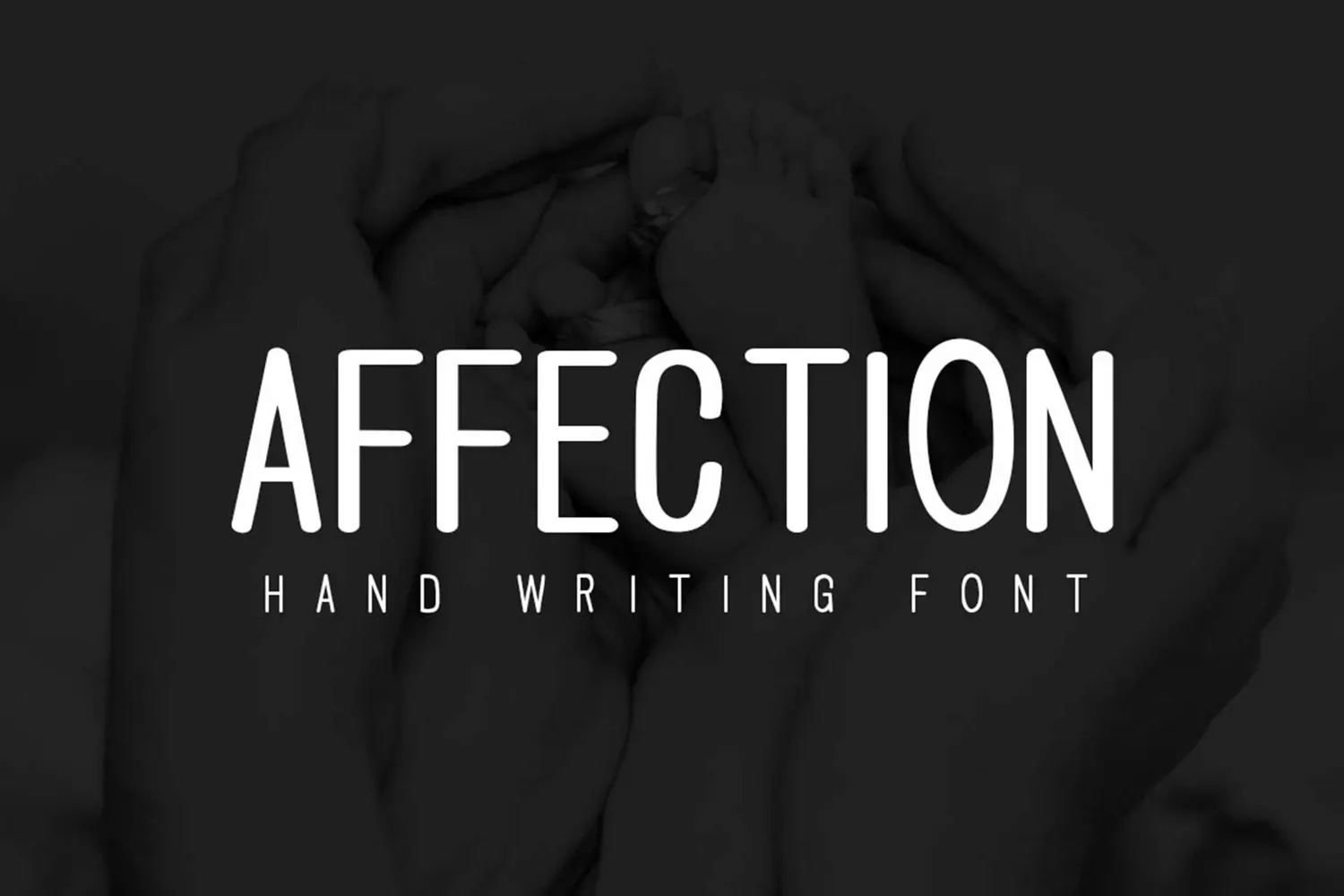
Affection Font
Affection is a tall, condensed, handwritten sans-serif font created to bring warmth, intimacy, and a genuine human touch to your creative work. The design is inspired by the simple beauty of modern minimalist handwriting—capturing the authentic feel of a quick hand-drawn note while keeping letterforms clean and easy to read. The goal was to create a versatile display font that combines tight, tall proportions with rounded edges to give design projects an approachable feel.
This font is ideal for graphic designers, crafters, content creators, and brand owners looking to add personality to their visuals. It works beautifully across a wide range of creative applications, including logo design, social media graphics, quote posters, greeting cards, product packaging, and photo overlays.
- Character Set: All Uppercase Letters (A–Z) with clean monoline strokes and rounded terminals.
- Branding & Logos: Clean, handcrafted logotypes and headers.
- Social Media & Quotes: Eye-catching Instagram posts, Pinterest pins, and story overlays.
- Print & Packaging: Greeting cards, baby announcements, product labels, and apparel graphics.
- Editorial & Books: Modern magazine headlines and book cover titles.